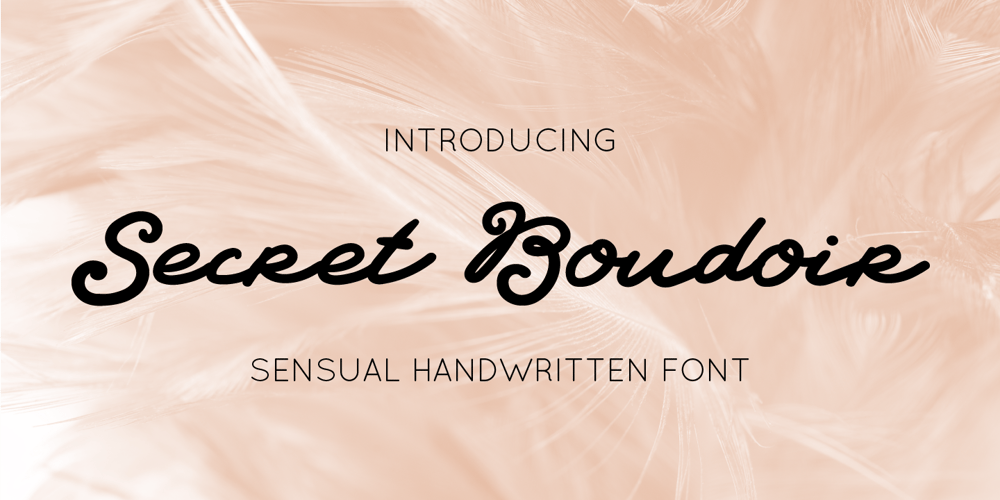
Secret Boudoir Font Family was designed by Wiktoria Matynia and published by Creative Corner. Secret Boudoir contains 1 styles and family package options. Secret Boudoir is a handwritten type of font with a sensual, romantic vibe. The style of handwritting is feminine. The font contains decorative alternative capitals. It will be perfect for themes like weddings, lifestyle, feminity but also for quotes, titles, blogs for product names and packaging.